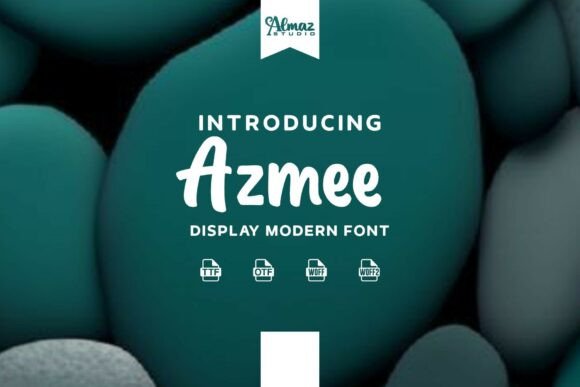
Discover the Joyful World of Azmee Font
I’ll never forget the time I was working on a branding project for a children’s toy company. I had spent hours brainstorming ideas, sketching out concepts, and refining my design. But as I sat staring at my computer screen, I realized I was stuck on one thing: the font. I wanted something that would speak to kids and parents alike, something playful yet professional. That’s when I stumbled upon Azmee Font, and it was love at first sight! ✨
A Modern Display Font with a Playful Twist
Azmee is a modern display font that exudes a playful, friendly, and bold personality. Its soft, rounded strokes and smooth curves give it a casual, handwritten feel that’s both warm and approachable. The design is expressive yet clean, making it easy to read while still visually engaging. Whether you’re working on branding, children’s products, creative projects, logos, packaging, social media graphics, posters, or fun promotional designs, Azmee is the perfect fit.
- ✨ The playful and friendly vibe that Azmee brings to any design
- ✅ The clean and expressive design that makes it easy to read
- 💻 The font’s versatility, making it suitable for both print and digital applications
- 🎨 The range of OpenType features, glyphs, and stylistic alternates that allow for creative experimentation
- 🤔 Some users may find the font too casual or playful for certain projects
- ⚠️ The font’s rounded strokes may not be suitable for very small font sizes or low-resolution displays
A Practical Guide to Using Azmee
The Story Behind Azmee
Azmee was designed with the goal of creating a modern display font that’s both playful and professional. The designer, inspired by the world of children’s products and creative projects, set out to create a font that’s both fun and functional. With its soft, rounded strokes and smooth curves, Azmee is the perfect blend of personality and readability.
| What is Azmee Font best suited for? | Azmee Font is ideal for branding, children’s products, creative projects, logos, packaging, social media graphics, posters, and fun promotional designs. |
| Is Azmee Font suitable for body text? | While Azmee Font is primarily designed for display purposes, it can be used for body text in certain contexts. However, it’s recommended to use a clean sans-serif font for longer blocks of text. |